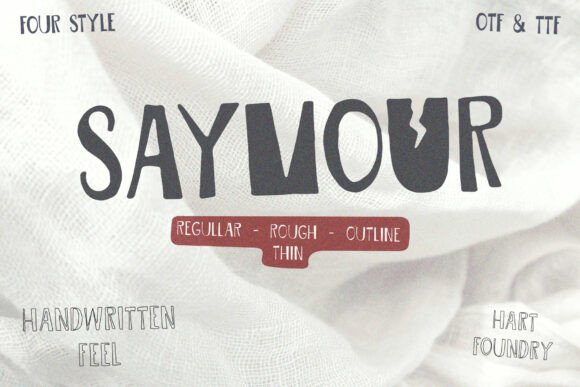
Saymour Font: A Quirky and Playful Handwritten Font for Your Design Needs
Are you tired of using the same old fonts for your designs? Look no further than Saymour Font, a quirky and playful handwritten font that brings charm and originality to any design. With four unique styles—Regular, Rough, Thin, and Outline—Saymour offers a versatile toolkit for branding, posters, crafts, or editorial design.
What Makes Saymour Font Special?
- Hand-drawn irregularities: Saymour Font has a warm, casual tone that feels both modern and organic, thanks to its hand-drawn irregularities.
- Distinctive character shapes: The font’s distinctive character shapes give it a unique personality that sets it apart from other fonts.
- Four unique styles: Saymour Font comes in four unique styles—Regular, Rough, Thin, and Outline—making it versatile for different design needs.
Design Applications for Saymour Font
Saymour Font is a versatile font that can be used for various design applications. Here are some of the ways you can use Saymour Font:
Branding
Saymour Font is perfect for branding projects that require a unique and playful touch. Its hand-drawn irregularities and distinctive character shapes make it an excellent choice for logos, business cards, and letterheads.
Posters and Flyers
Saymour Font is ideal for posters and flyers that require a bold and striking look. Its Outline style is perfect for grabbing attention and making a statement.
Crafts and DIY Projects
Saymour Font is perfect for crafts and DIY projects that require a more organic and handmade feel. Its Rough style adds a touch of ruggedness and texture to your designs.
Editorial Design
Saymour Font is suitable for editorial design projects that require a clean and elegant look. Its Regular style is perfect for articles, blog posts, and other written content.
Tips and Tricks for Using Saymour Font
Here are some tips and tricks for using Saymour Font:
Experiment with Different Styles
Don’t be afraid to experiment with different styles of Saymour Font. Mix and match the Regular, Rough, Thin, and Outline styles to create a unique look that suits your design needs.
Use it for Headings and Titles
Saymour Font is perfect for headings and titles. Use it to add a touch of personality and whimsy to your designs.
Pair it with Other Fonts
Saymour Font can be paired with other fonts to create a unique and visually appealing look. Experiment with different font combinations to find the perfect match.
Saymour Font is a quirky and playful handwritten font that brings charm and originality to any design. With its four unique styles, hand-drawn irregularities, and distinctive character shapes, Saymour Font is perfect for branding, posters, crafts, and editorial design. Whether you’re after a clean or rugged look, Saymour delivers personality in every letter.